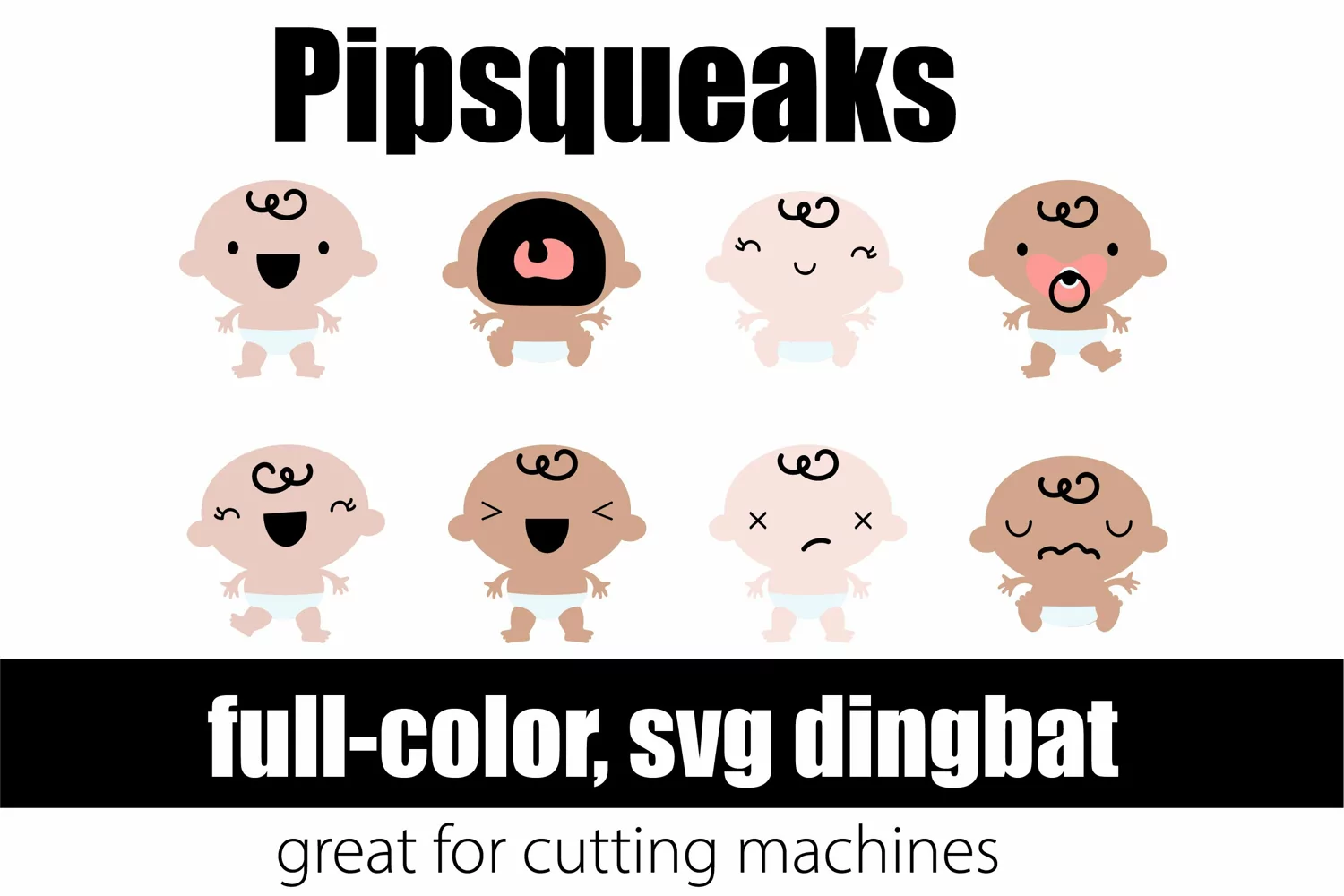
Pipsqueaks
This full-color dingbat font features babies and their emotions. Additional baby's firsts and baby supplies in two more full-color dingbats included.